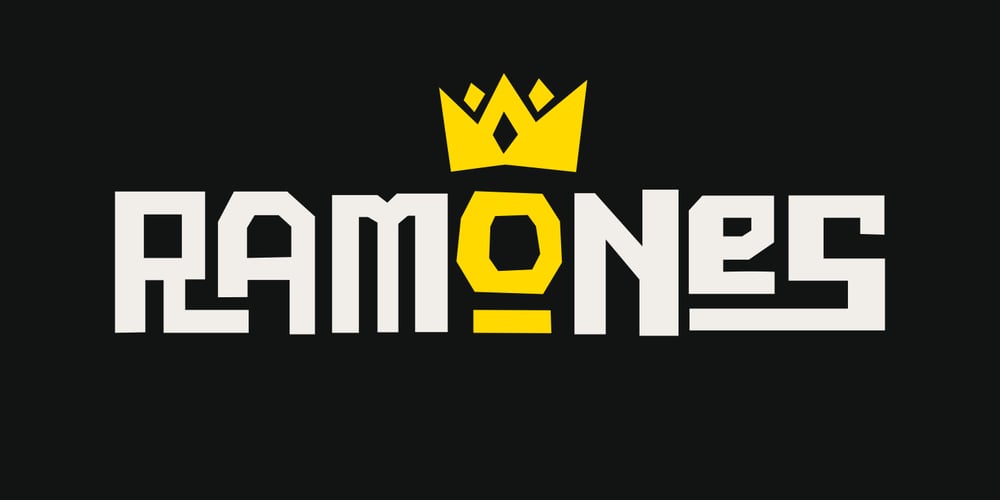
Ramones Font Family was designed by Sahirul Iman and published by Namistudio. Ramones contains 1 styles and family package options. Rebel, Energy, Punk, Power… Ramones, jagged interlock letter with bold line. This font will bring that IN YOUR FACE attitude in your design. No more soft side. It’s all about the energy ! Either choosing the auto-generate interlocking letters, or keep it original, Ramones still brings you the power.